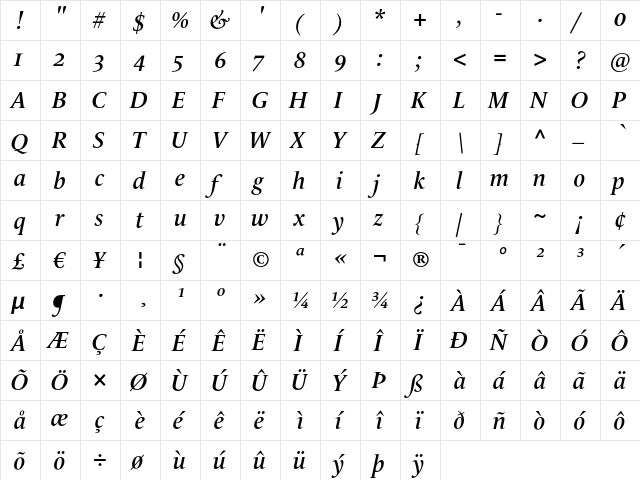
LeMondeLivre Demi Italic Oldstyle Figures
Design Context for LeMondeLivre Typeface
LeMondeLivre brings classic typographic sensibility to the table — its serifs and measured letterforms reflect centuries of print heritage. The slanted form adds forward momentum and visual energy.
Pro Tip: Use LeMondeLivre for editorial body copy and considered headline work. Pair with a neutral sans for UI elements or captions to create a classic hierarchy.